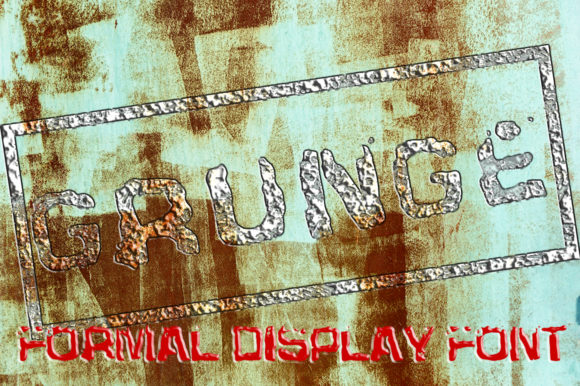
Grunge Font: The Ultimate Choice for Crafty Designs
Are you looking for a font that adds a touch of ruggedness and edginess to your designs? Look no further than the Grunge Font. This cool, rough textured display font is perfect for crafty ideas, from letterheads and titles to stationery. In this article, we’ll explore the features and benefits of Grunge Font, and why it’s a must-have for designers and crafters.
What is Grunge Font?
Grunge Font is a unique and bold display font that features a rough, textured look. It’s perfect for adding a touch of grunge style to your designs, giving them a rugged and edgy feel. The font is designed to be versatile, making it suitable for a wide range of crafty ideas, from letterheads and titles to stationery and more.
Key Features of Grunge Font
- Original and Bold Look: Grunge Font features an original and bold look that will make your designs stand out.
- Rough Textured Display: The font’s rough textured display gives it a unique and rugged feel.
- Versatile: Grunge Font is suitable for a wide range of crafty ideas, from letterheads and titles to stationery.
- Easy to Read: Despite its rough texture, Grunge Font is easy to read, making it perfect for use in titles and headings.
Benefits of Using Grunge Font
So, why should you use Grunge Font in your designs? Here are just a few benefits:
- Adds Edge to Your Designs: Grunge Font adds a touch of ruggedness and edginess to your designs, making them stand out from the crowd.
- Perfect for Crafty Ideas: The font is perfect for crafty ideas, such as letterheads, titles, and stationery.
- Increases Readability: Despite its rough texture, Grunge Font is easy to read, making it perfect for use in titles and headings.
- Versatile: Grunge Font can be used in a wide range of designs, from digital to print.
How to Use Grunge Font
Using Grunge Font is easy. Here are a few tips:
- Use it as a Display Font: Grunge Font is perfect for use as a display font, for titles and headings.
- Pair it with Other Fonts: Try pairing Grunge Font with other fonts to create a unique and interesting look.
- Experiment with Colors: Grunge Font looks great in a range of colors, from bold and bright to muted and pastel.
Design Ideas Using Grunge Font
- Letterheads: Use Grunge Font to create bold and eye-catching letterheads.
- Titles and Headings: Use Grunge Font to add a touch of ruggedness and edginess to your titles and headings.
- Stationery: Use Grunge Font to create unique and interesting stationery, such as greeting cards and invitations.
- Posters and Flyers: Use Grunge Font to create bold and eye-catching posters and flyers.
In conclusion, Grunge Font is a cool, rough textured display font that’s perfect for crafty ideas. Its original and bold look makes it a must-have for designers and crafters. With its versatility, ease of use, and range of design possibilities, Grunge Font is an excellent addition to any design toolkit.